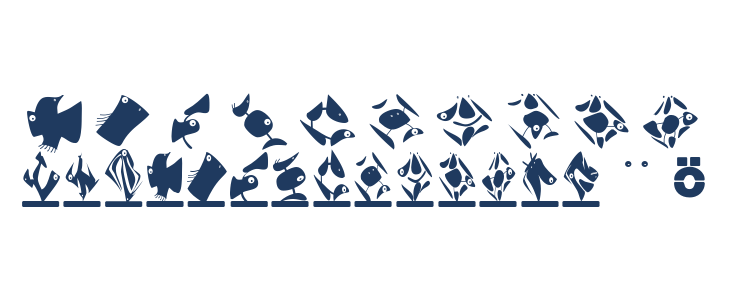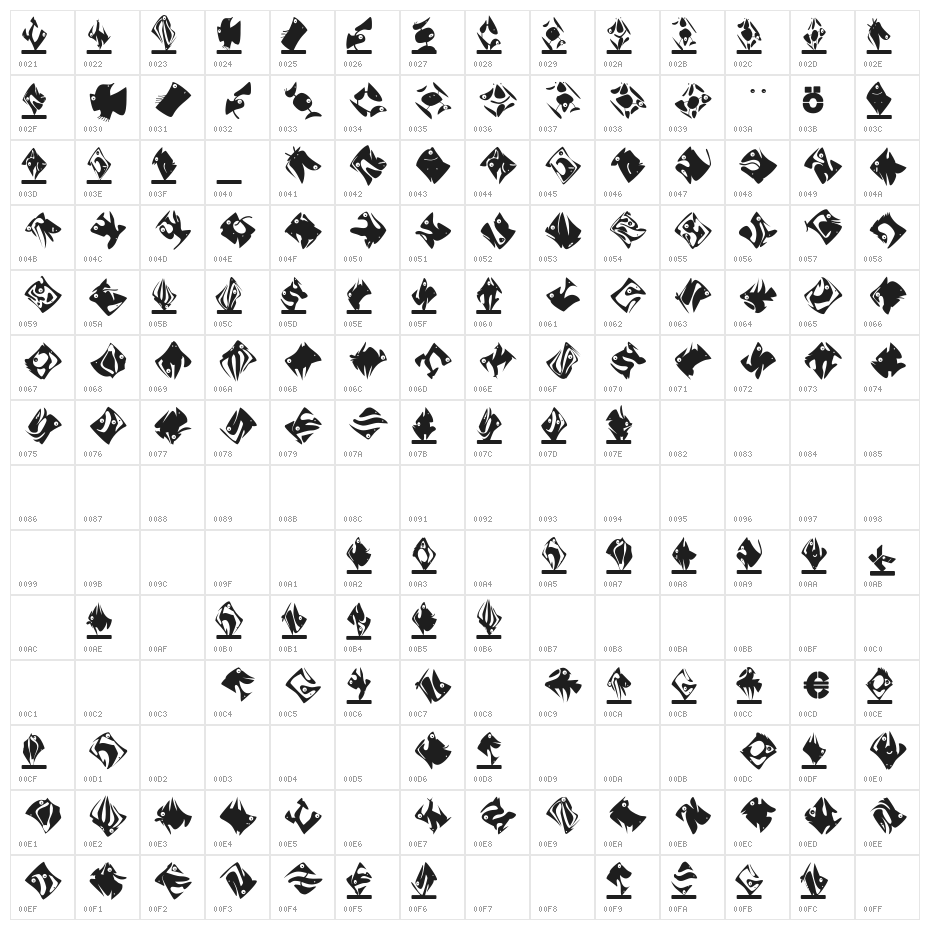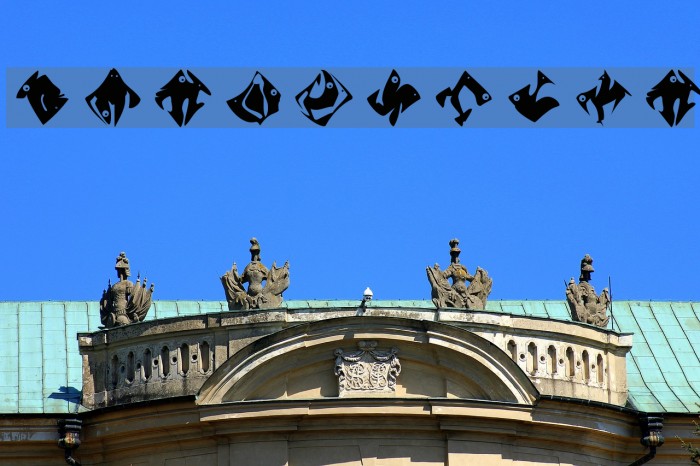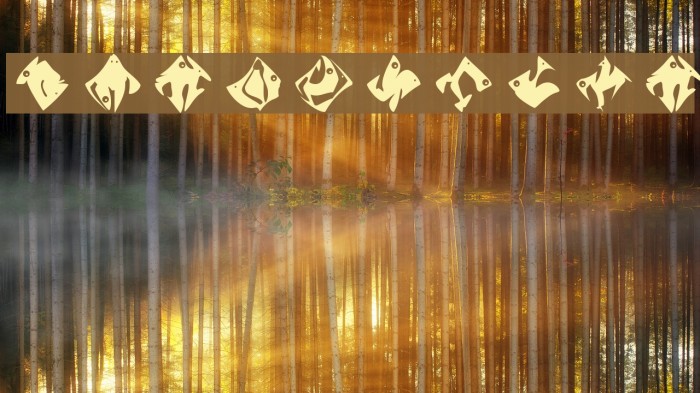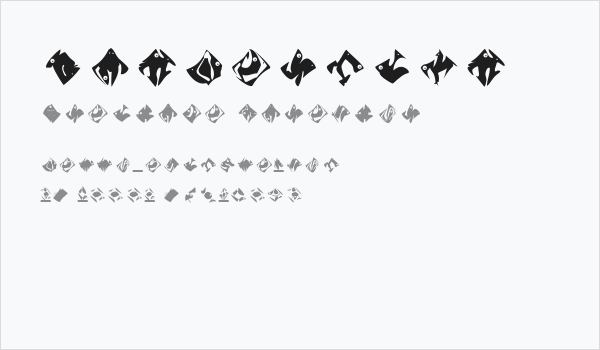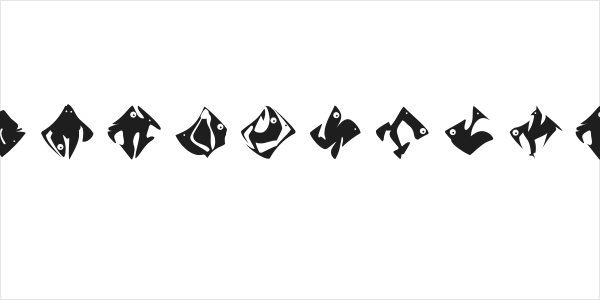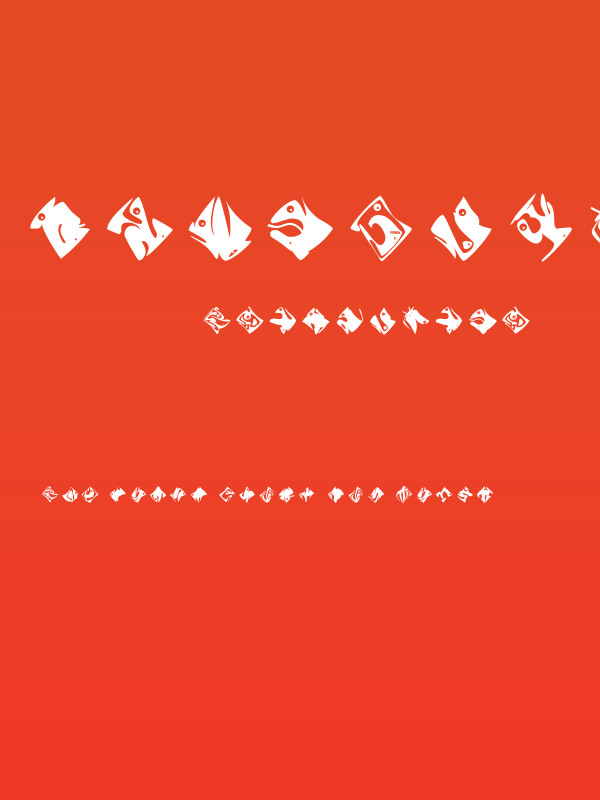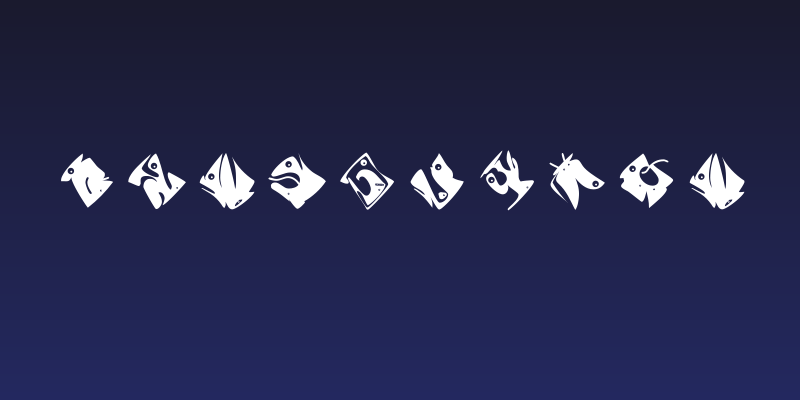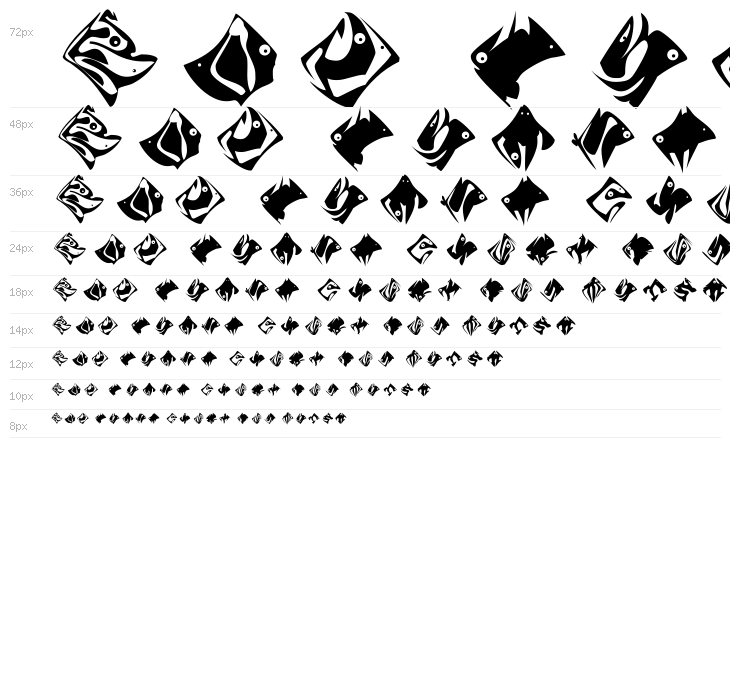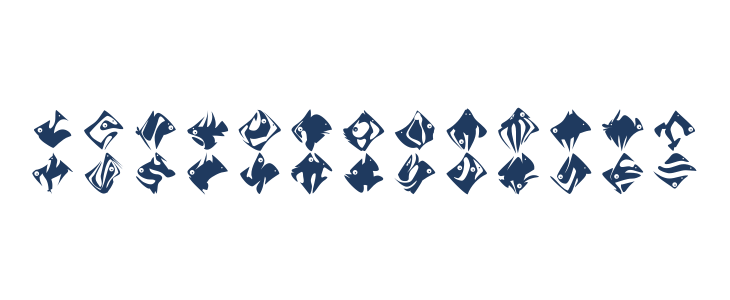
Fishermans Font
Fishermans Description
This is a highly decorative and artistic font where each character is represented by a unique fish design. The characters are stylized to resemble various fish shapes, incorporating intricate details and abstract forms. The overall appearance is playful and imaginative, making it suitable for creative projects. The characters are enclosed in diamond-shaped frames, adding a structured yet whimsical touch. This font is not suitable for body text due to its complex design but can be an excellent choice for thematic displays or artistic headings.
| Use Case | Logos, Headlines, Artistic Displays |
| Proposed Projects | Ideal for ocean-themed posters, children's book illustrations, aquarium branding, or any project requiring a whimsical and artistic touch. |